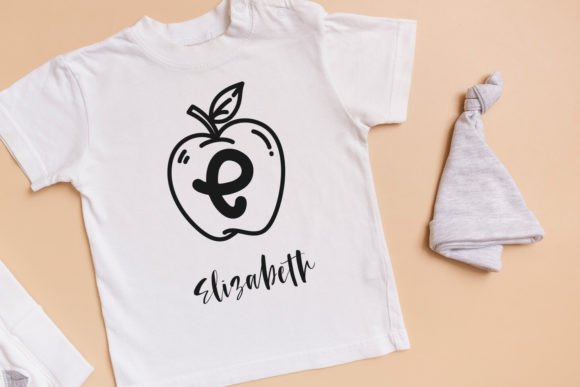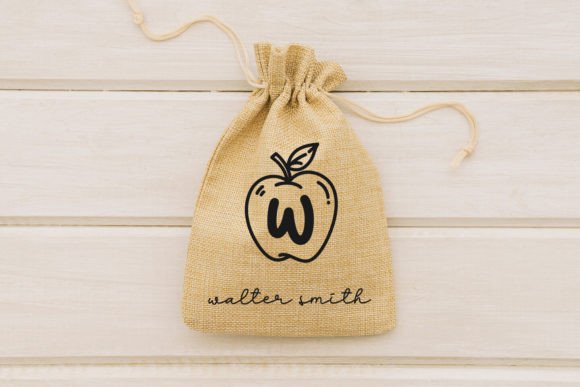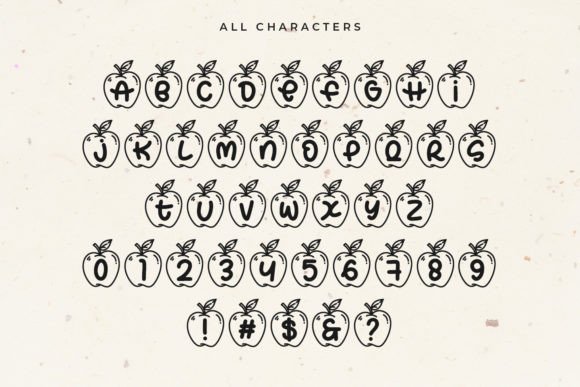
Introducing Apelo Font: The Cute Decorative Font for Creative Designs
Are you a designer, crafter, or DIY enthusiast looking for a unique and adorable font to elevate your creative projects? Look no further than Apelo Font, a charming decorative font that features a monogram inside an apple. In this article, we’ll dive into the world of Apelo Font, exploring its features, uses, and benefits for designers and crafters alike.
What is Apelo Font?
Apelo Font, also known as APELO, is a cute decorative font that showcases a monogram inside an apple. This delightful font is perfect for adding a touch of whimsy and personality to your designs. Whether you’re creating branding materials, logos, t-shirt designs, tote bag designs, cards, banners, or social media graphics, Apelo Font is sure to make your projects stand out.
Key Features of Apelo Font
- Unique Design: Apelo Font boasts a distinctive design, featuring a monogram inside an apple. This eye-catching font is sure to grab attention and leave a lasting impression.
- Decorative Style: Apelo Font has a decorative style that adds a touch of elegance and sophistication to your designs.
- Versatile: This font is versatile and can be used for a wide range of creative projects, from branding and logos to t-shirt designs and social media graphics.
Uses of Apelo Font
Apelo Font is an incredibly versatile font that can be used for various creative projects, including:
- Branding: Use Apelo Font to create unique and memorable brand identities that showcase your personality and style.
- Logos: Design stunning logos that incorporate the Apelo Font, perfect for businesses, products, or services.
- T-Shirt Designs: Add a touch of whimsy to your t-shirt designs with Apelo Font, creating eye-catching and conversation-starting apparel.
- Tote Bag Designs: Create adorable tote bag designs that feature Apelo Font, perfect for farmers’ markets, grocery shopping, or everyday use.
- Cards and Banners: Use Apelo Font to design beautiful cards and banners for special occasions, such as birthdays, weddings, or holidays.
- Social Media Graphics: Elevate your social media presence with Apelo Font, creating engaging and shareable graphics that showcase your personality and style.
Benefits of Using Apelo Font
By incorporating Apelo Font into your creative projects, you’ll enjoy several benefits, including:
- Unique and Memorable Designs: Apelo Font helps you create unique and memorable designs that stand out from the crowd.
- Ease of Use: This font is easy to use and can be incorporated into various design software and platforms.
- Time-Saving: With Apelo Font, you can save time and effort in designing from scratch, allowing you to focus on other creative aspects of your project.
- Professional-Looking Results: Apelo Font helps you achieve professional-looking results, even if you’re not a seasoned designer.
Tips for Using Apelo Font Effectively
To get the most out of Apelo Font, follow these tips:
- Experiment with Colors: Try pairing Apelo Font with different colors to create visually appealing and harmonious designs.
- Mix and Match: Combine Apelo Font with other fonts to create unique and interesting typography.
- Keep it Simple: Don’t overcomplicate your design – keep it simple and let Apelo Font be the focal point.
Apelo Font is a charming decorative font that offers a world of creative possibilities for designers and crafters. With its unique design, versatility, and ease of use, Apelo Font is perfect for adding a touch of personality and whimsy to your projects. Whether you’re creating branding materials, logos, t-shirt designs, or social media graphics, Apelo Font is sure to make your designs stand out. So why not give Apelo Font a try and see the creative possibilities unfold?